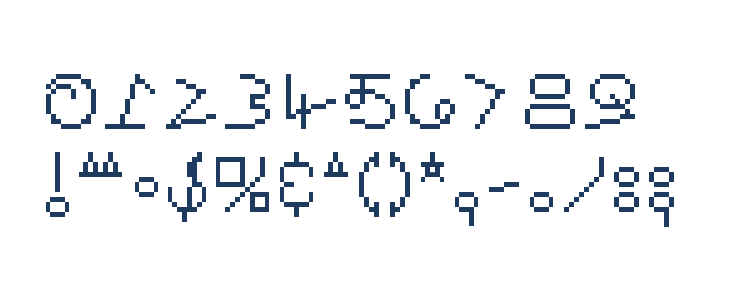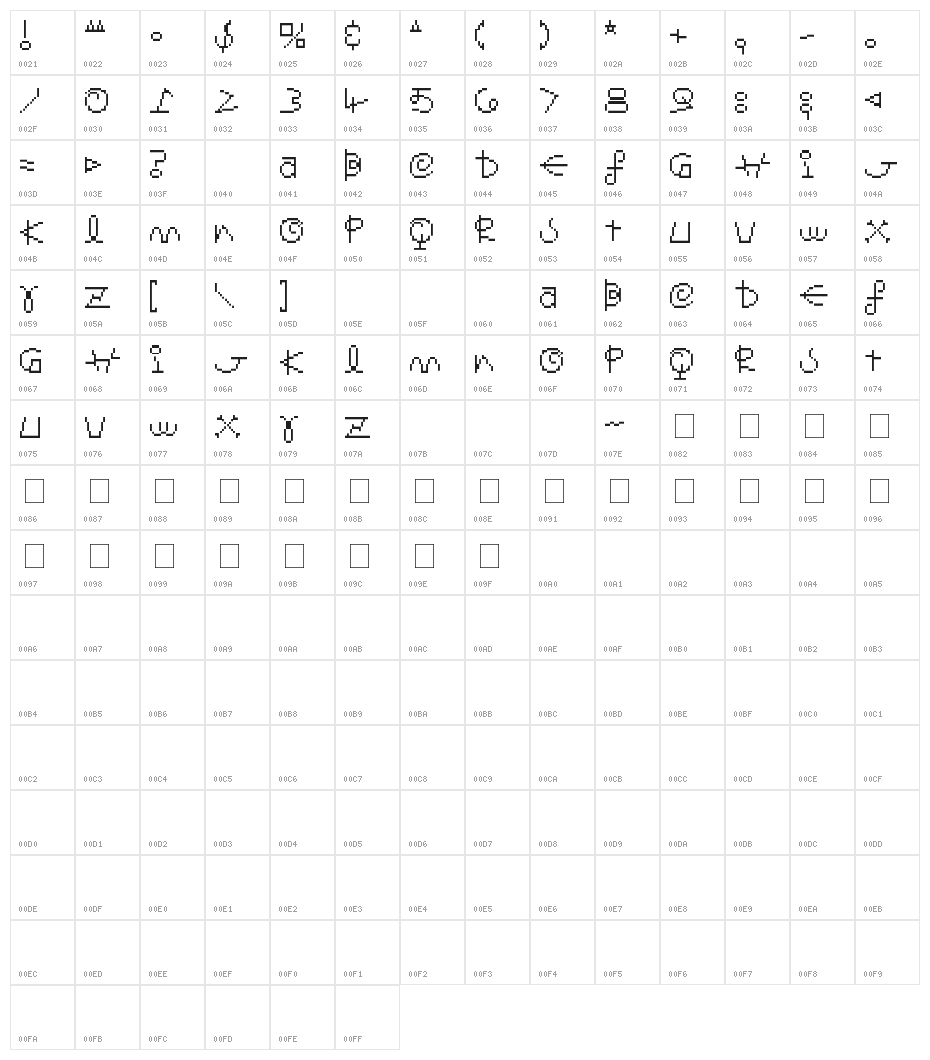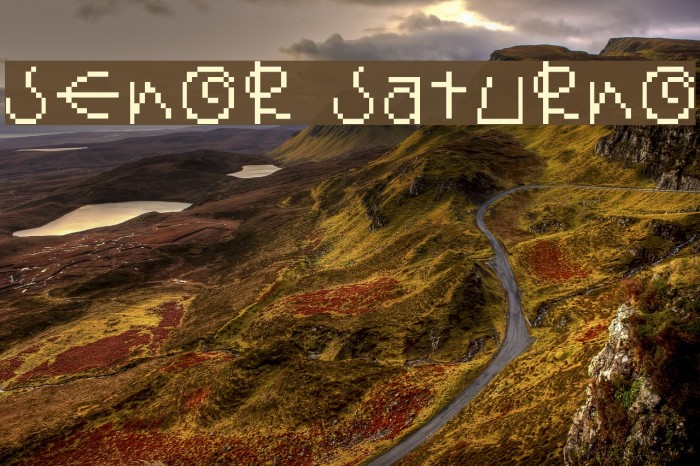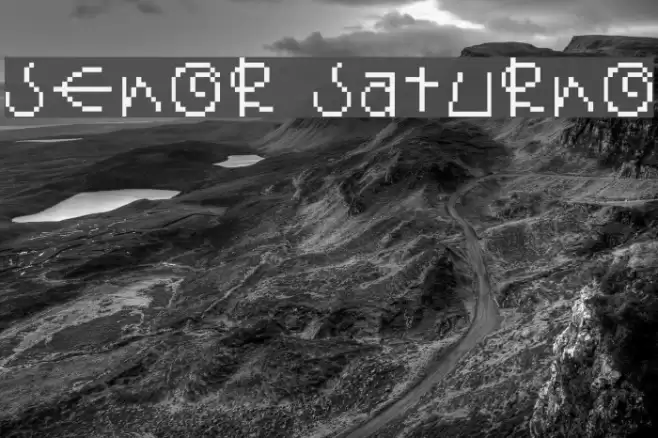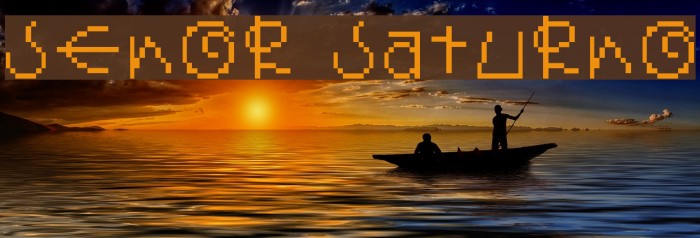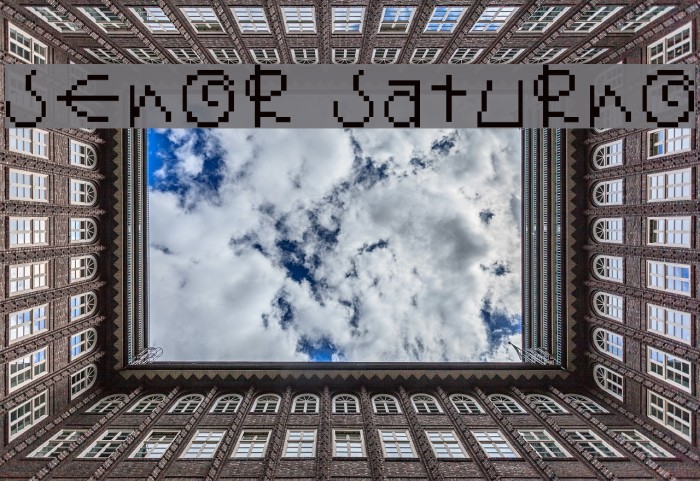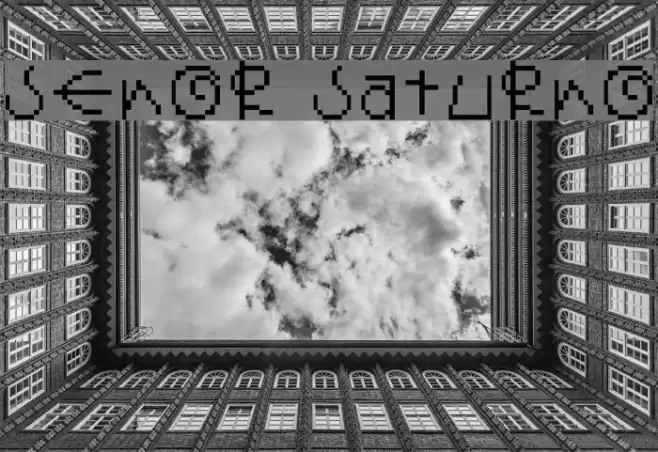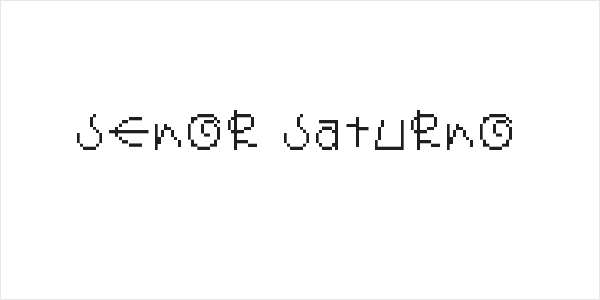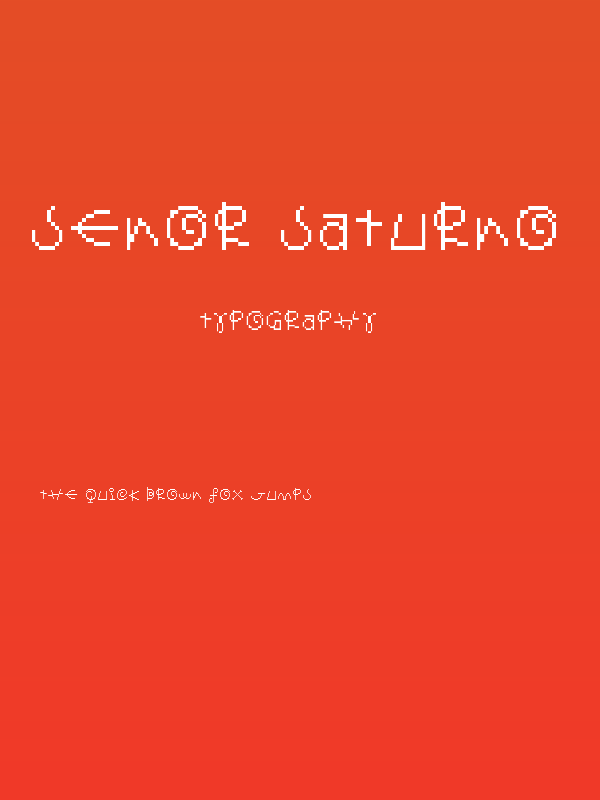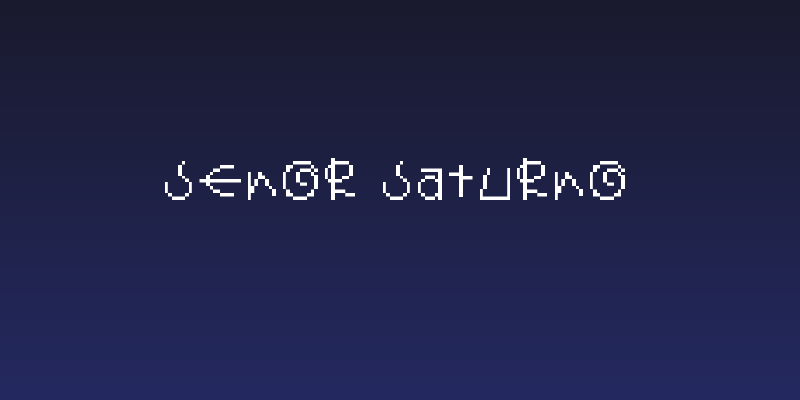
Senor Saturno Font
Senor Saturno Description
This font features a unique and playful design with a pixelated, retro aesthetic. Each character is constructed with a blocky, geometric style that evokes a sense of nostalgia reminiscent of early digital graphics or video games. The uppercase and lowercase letters maintain a consistent height, contributing to a uniform appearance. The numerals and special characters follow the same stylistic approach, ensuring cohesion across all glyphs. The font's distinctiveness lies in its quirky shapes and the creative use of negative space, making it stand out in any design project.
Overall StyleRetro